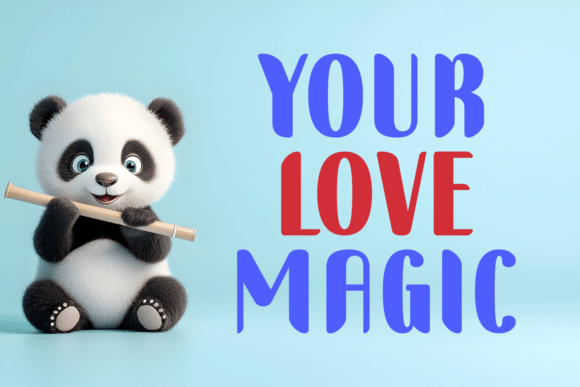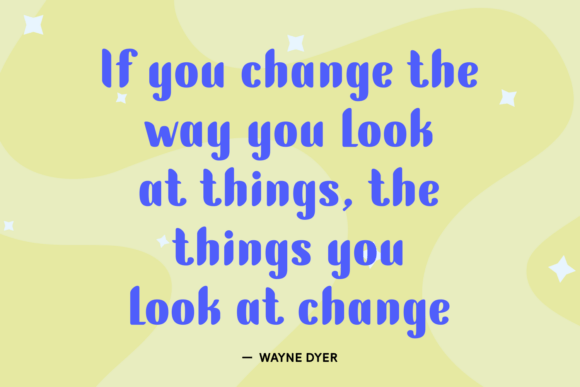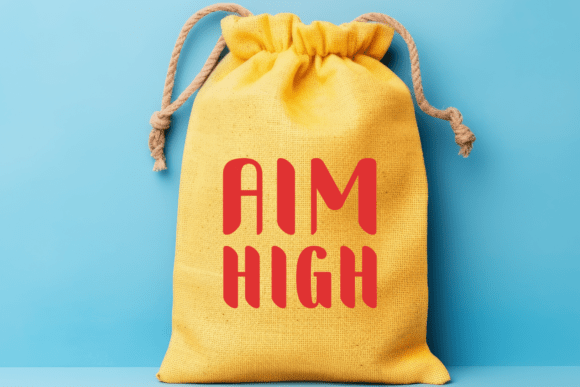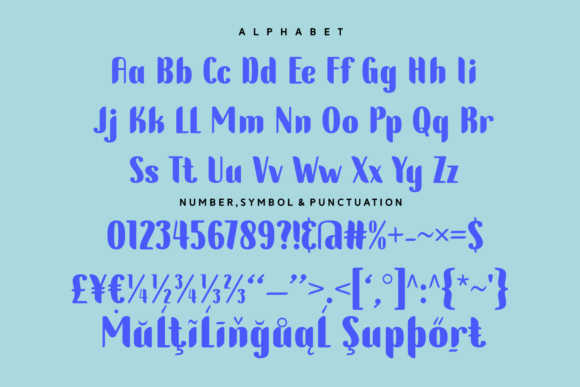
Introduction to Loyal Listener Font
Remember that moment when you stumbled upon the perfect font for your creative project, and everything fell into place? For designers, this moment is pure bliss. It’s the spark that ignites a chain of inspiration, and we’re excited to share with you the Loyal Listener Font – a game-changer in the world of typography.
With its hand-drawn characters and visually pleasing aesthetics, the Loyal Listener Font is a versatile design resource that seamlessly blends elements across Display, Cute, Feminine, Love, and Fashion categories. This high-quality font is perfect for crafting headlines that captivate and inspire, making it an invaluable asset for any creative endeavor. Whether you’re working on a magazine layout, book cover, or greeting card, the Loyal Listener Font is sure to bring a touch of elegance and sophistication.
Key Features of Loyal Listener Font
- Unique, modern design that can add a touch of sophistication to any creative project or design resource.
- Perfect for use in various creative projects, including logos, branding materials, and editorial content.
Honest Review: Loyal Listener Font
As a designer, I’m always on the lookout for high-quality design resources that can elevate my creative projects. The Loyal Listener Font is one such resource that caught my attention. ✨
One of the standout features of this font is its versatility. It’s perfect for a wide range of design applications, from branding and advertising to editorial and digital design. The font’s modern and sleek design makes it an excellent choice for any creative project.
Overall, I’m impressed with the Loyal Listener Font. It’s a great addition to any designer’s toolkit, and I’d highly recommend it for any creative project that requires a high-quality, modern font. ✨
Design Tips
For a creative project, use the Loyal Listener Font in combination with other design resources, such as graphics and images, to create a visually appealing design. To get the most out of it, experiment with different font sizes, colors, and styles to match your design needs.